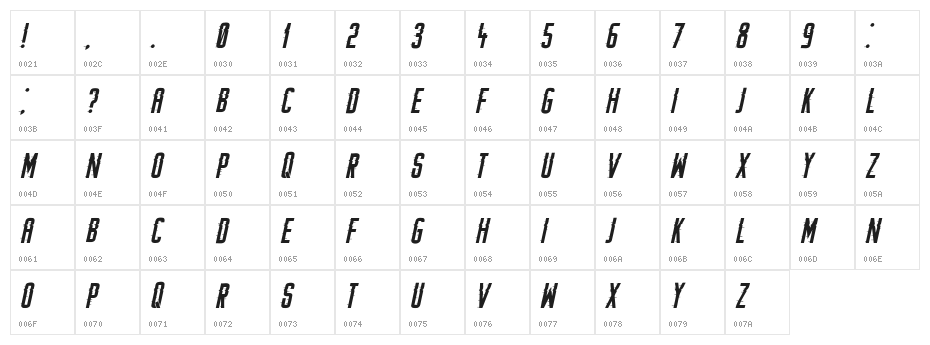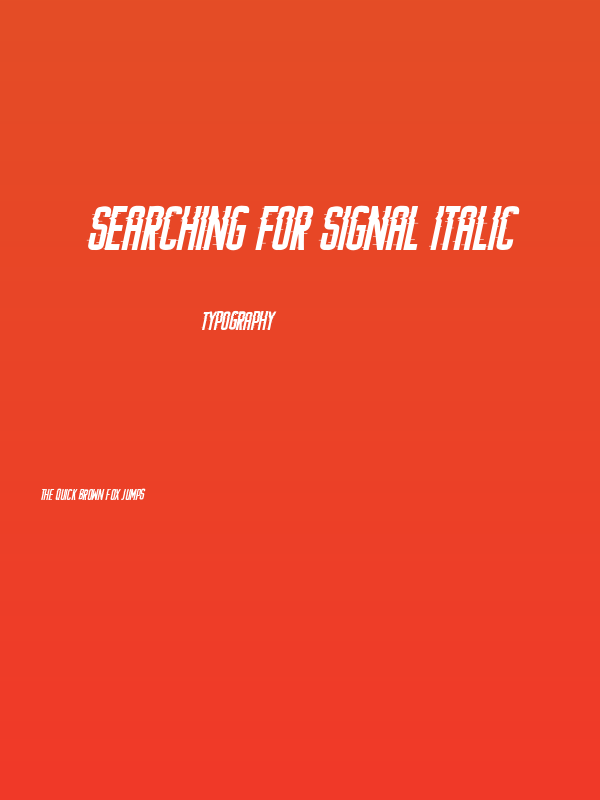
Searching For Signal Italic Font
Searching For Signal Italic Description
This font features a dynamic and edgy style with a distinct italic slant, giving it a sense of motion and urgency. The characters are bold and slightly condensed, with sharp angles and unique cutouts that add a modern, digital aesthetic. The uppercase letters are particularly striking, with elongated forms and a consistent stroke width that maintains readability while adding a futuristic flair. The numerals and special characters follow the same design principles, ensuring a cohesive look across all text elements. This font is ideal for projects that require a bold statement or a tech-inspired theme.
| Proposed Projects | Ideal for tech-themed designs, futuristic branding, video game titles, and dynamic posters. |